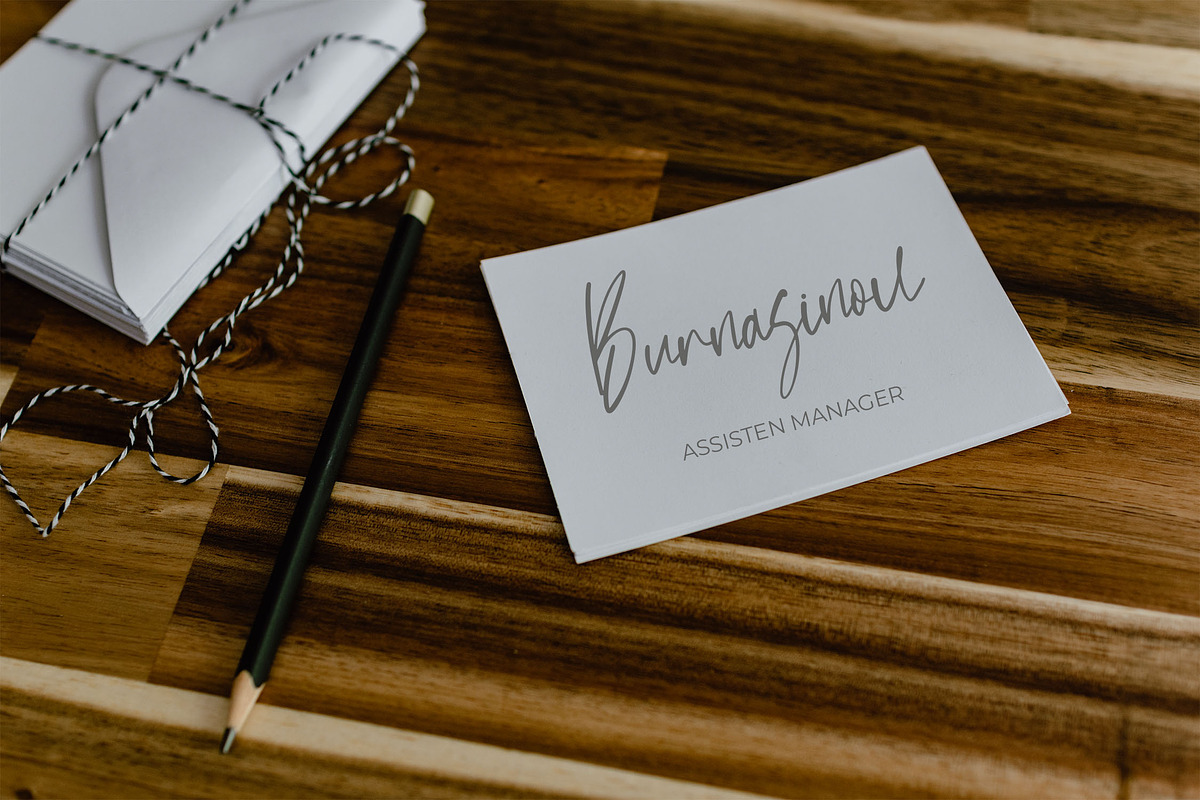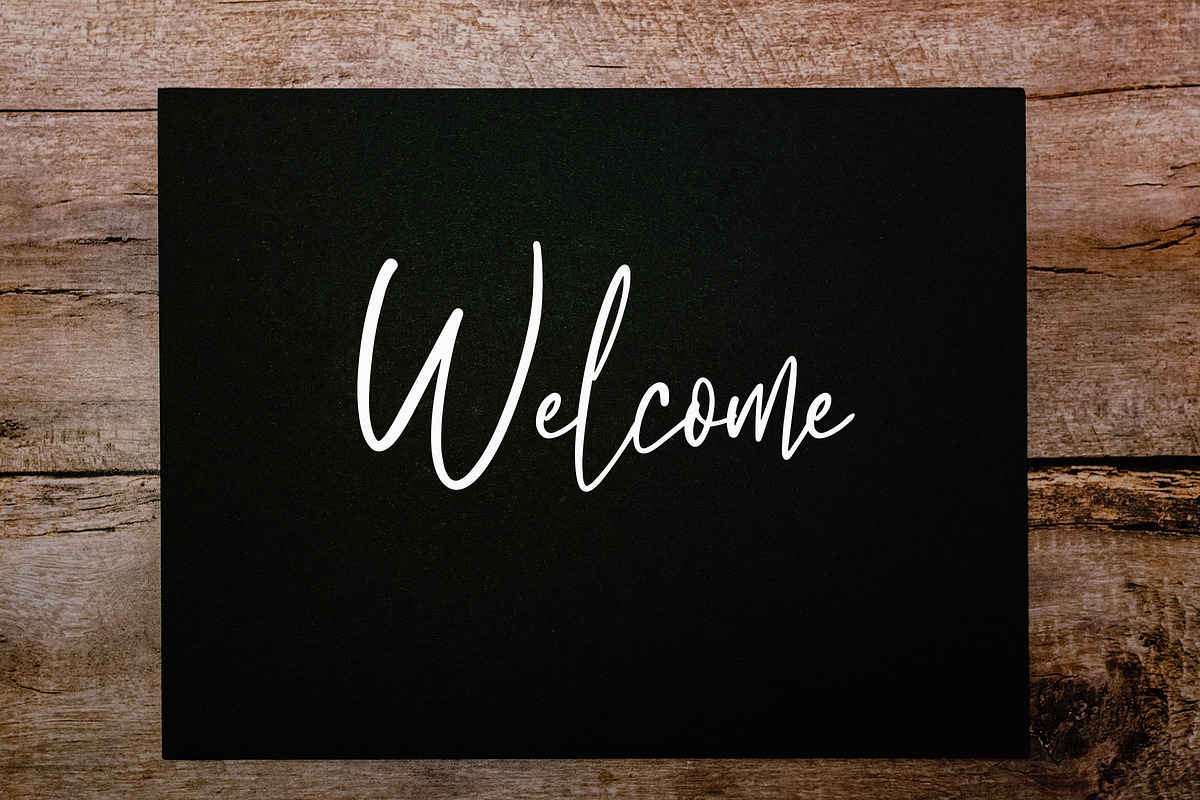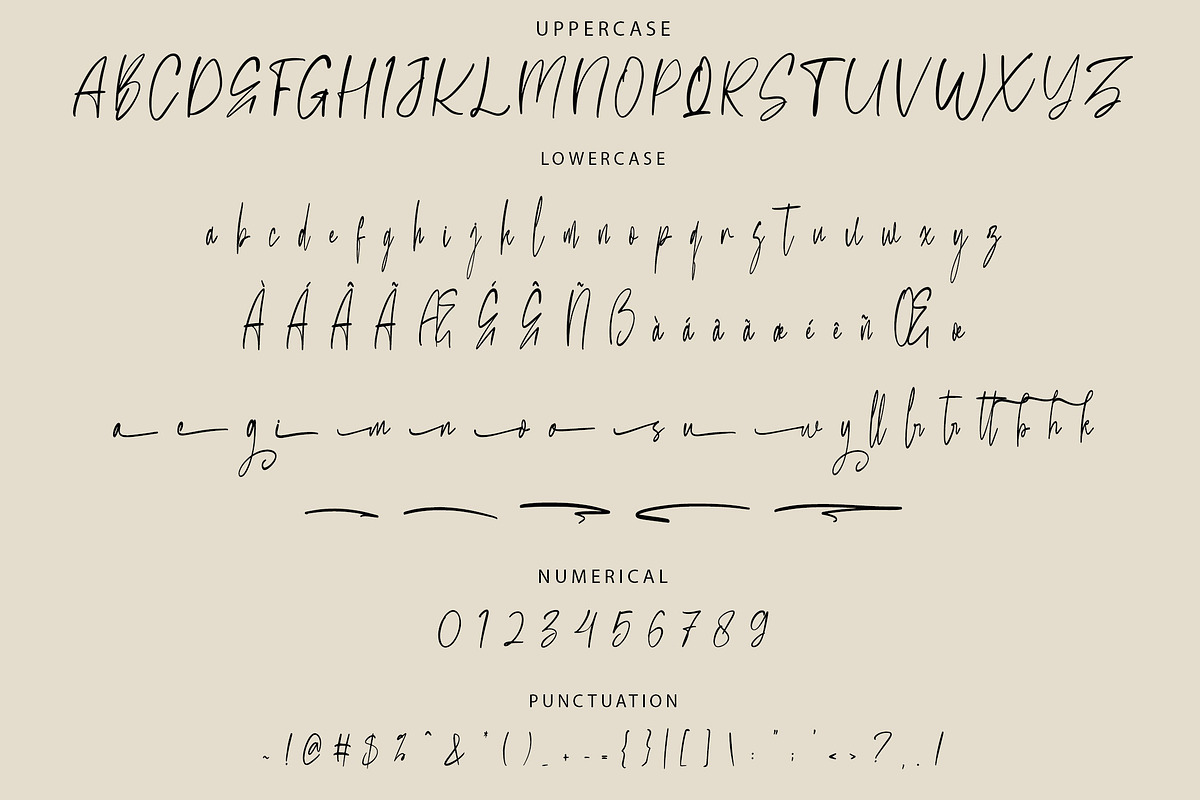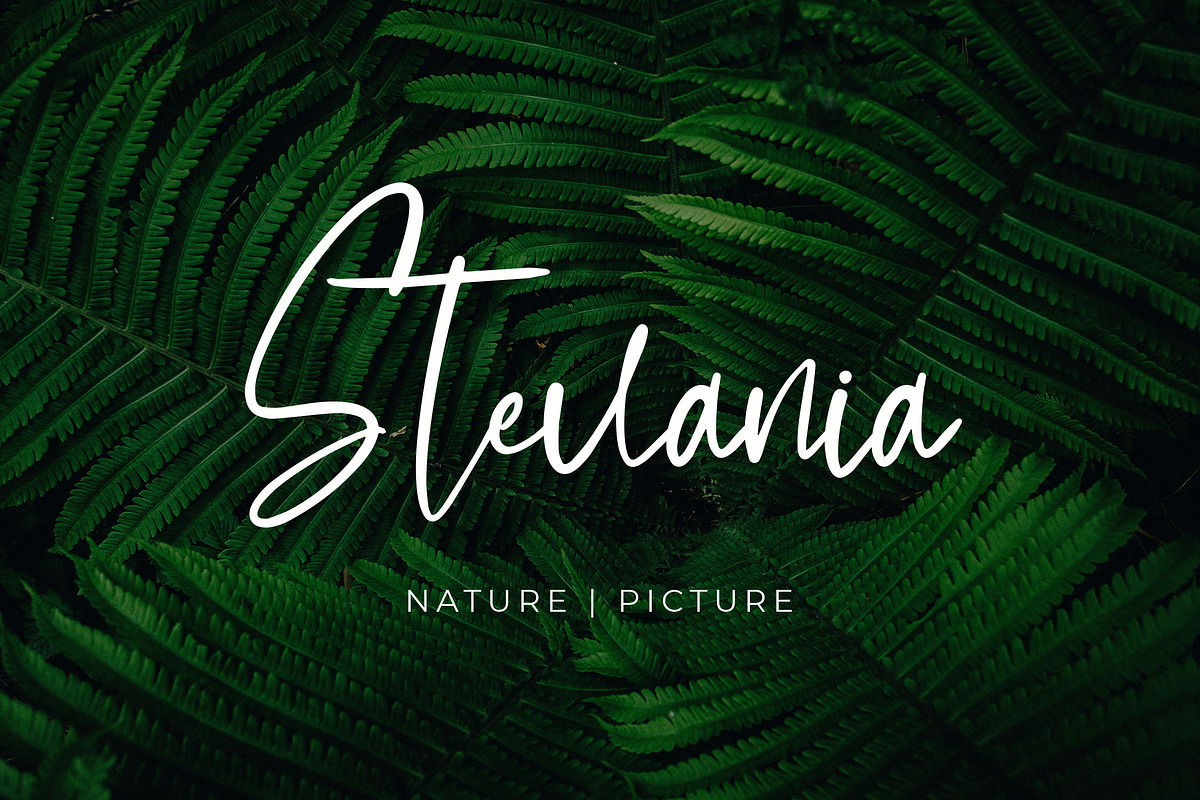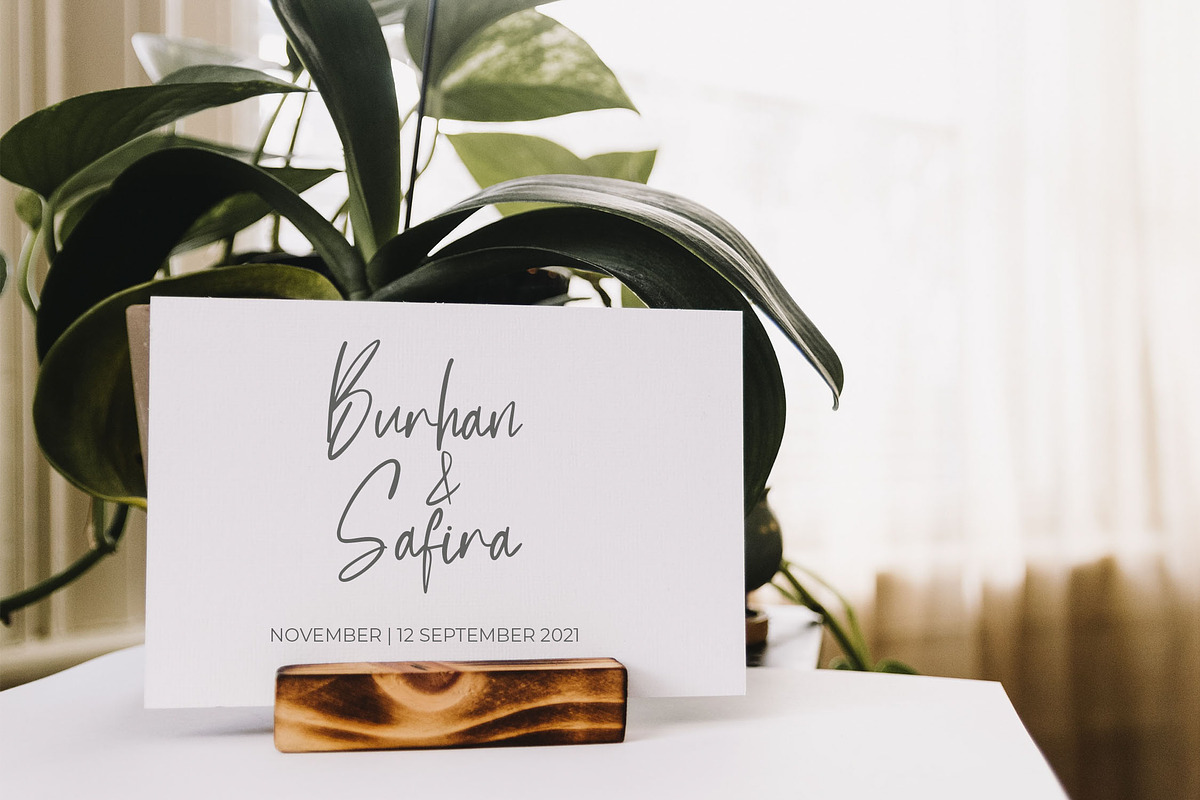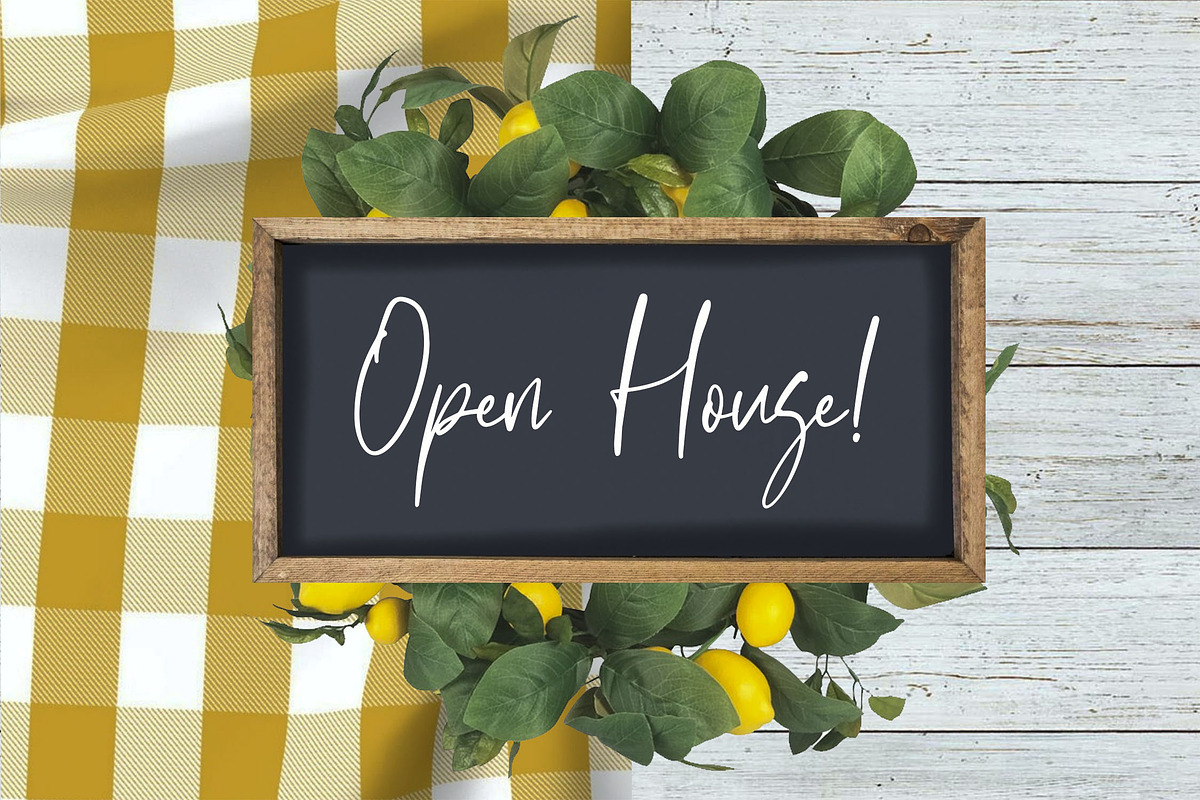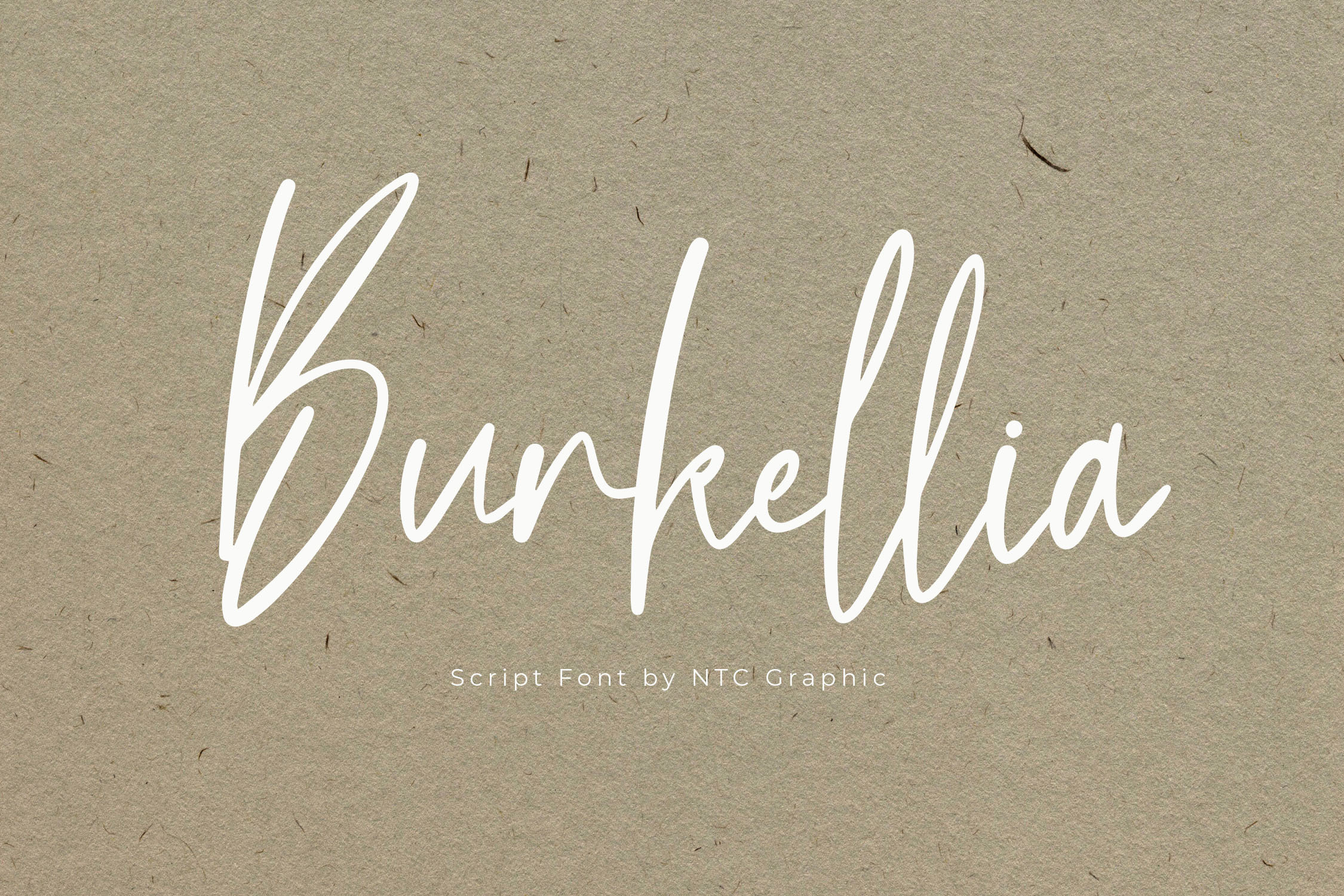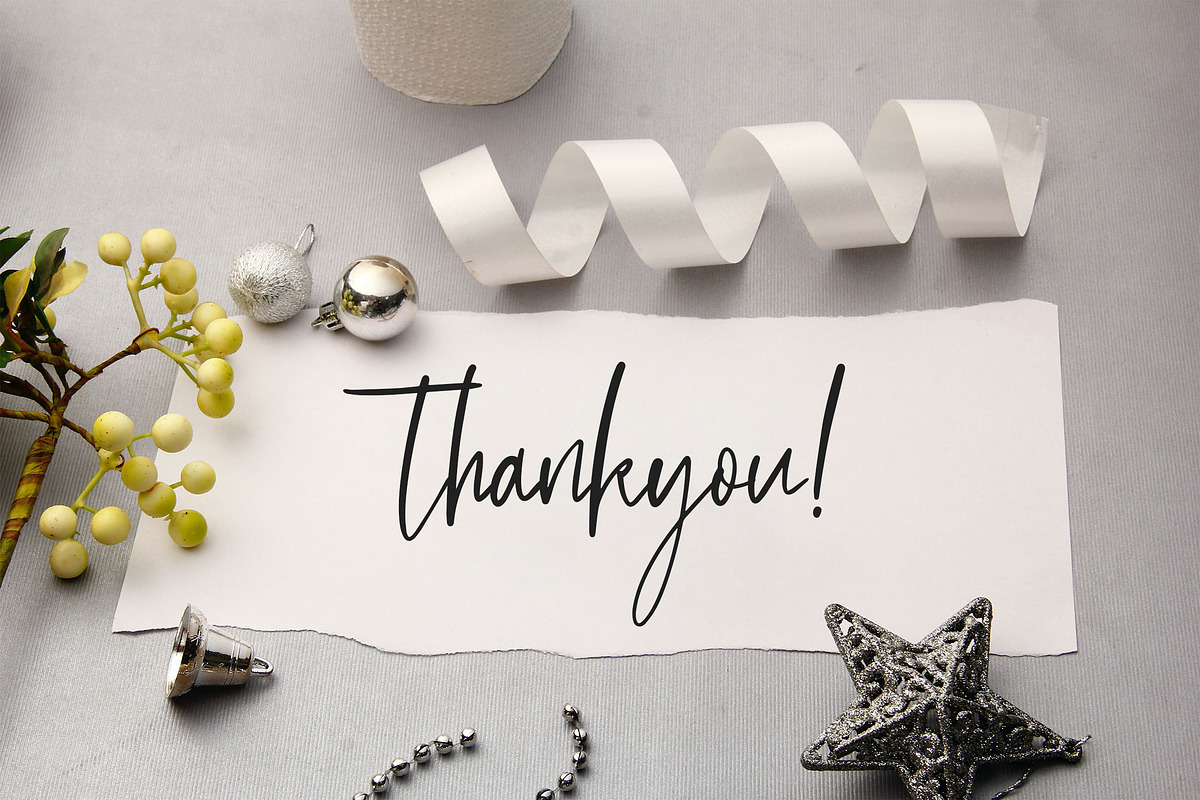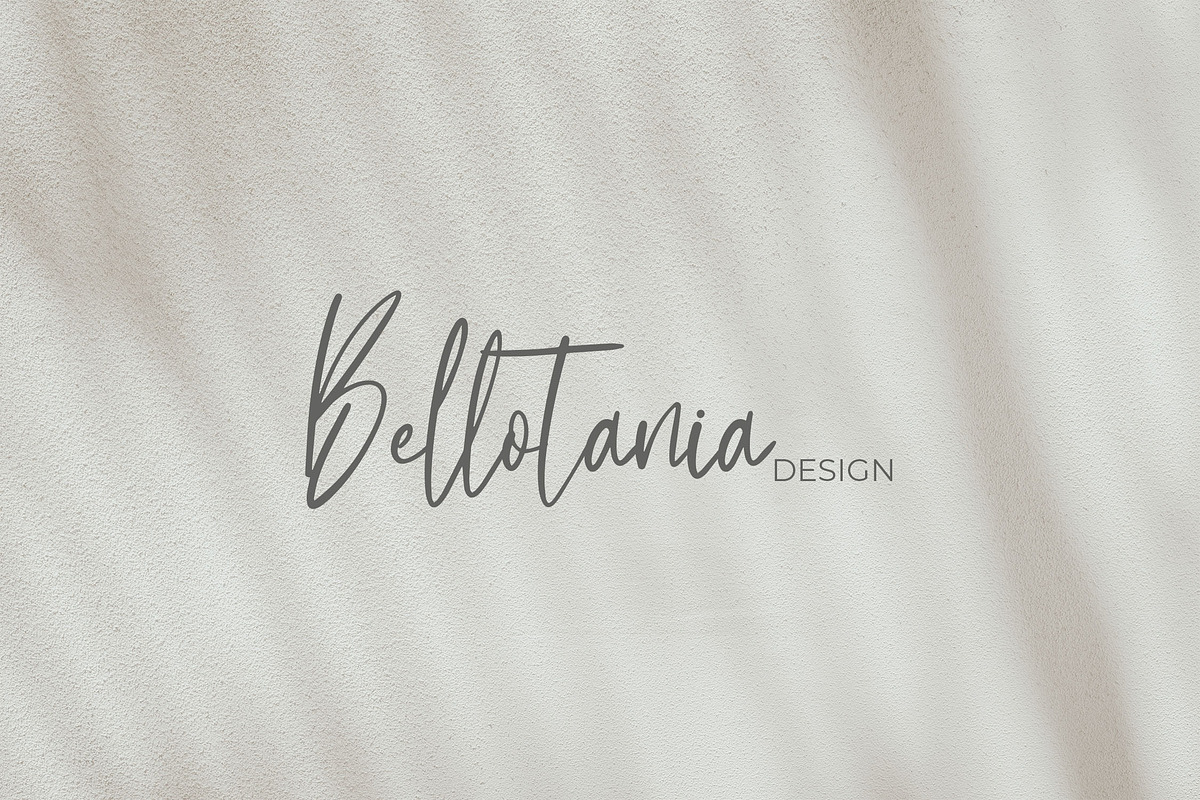
Burkellia Handwriting Script Font
Burkellia is a beautiful script font with a natural handwriting style, designed to bring a personal and elegant touch to your projects. Its unique character shapes make Burkellia perfect for logos, branding, invitations, and more. This font enhances the visual appeal of your designs, giving them a stylish and authentic look.
- Ligatures: Smooth letter connections for seamless typography.
- Stylistic Alternates: Personalize your designs with alternative letter forms.
- Swashes: Add elegant, flowing strokes to your text.
- Multilingual Support: Compatible with various languages and alphabets.